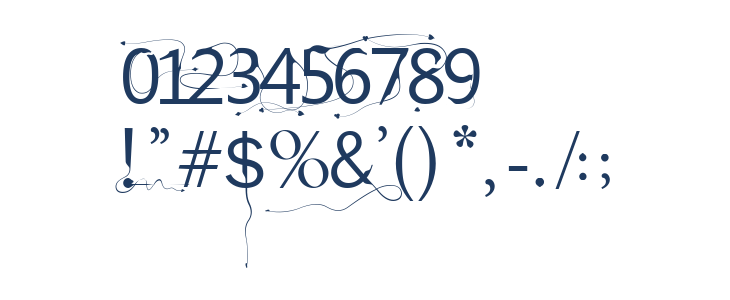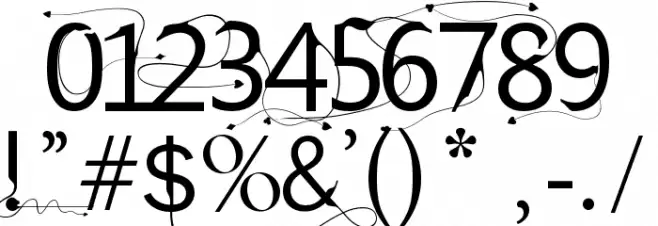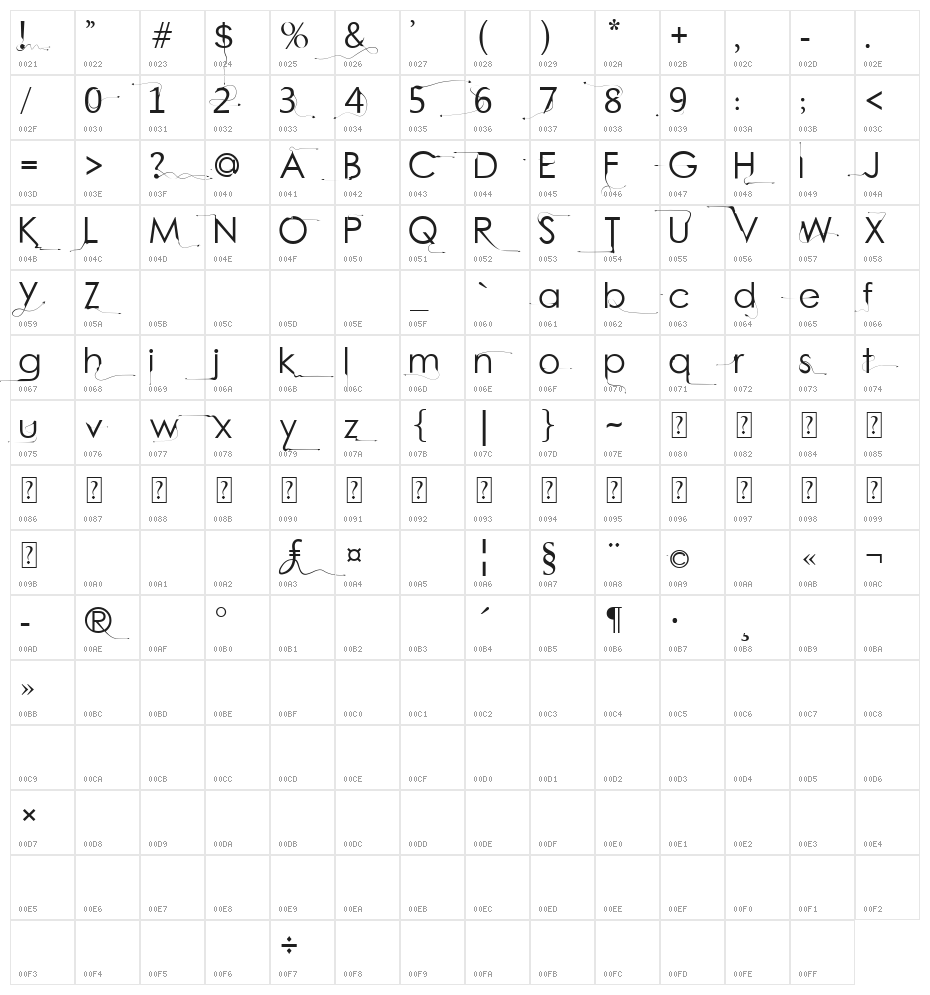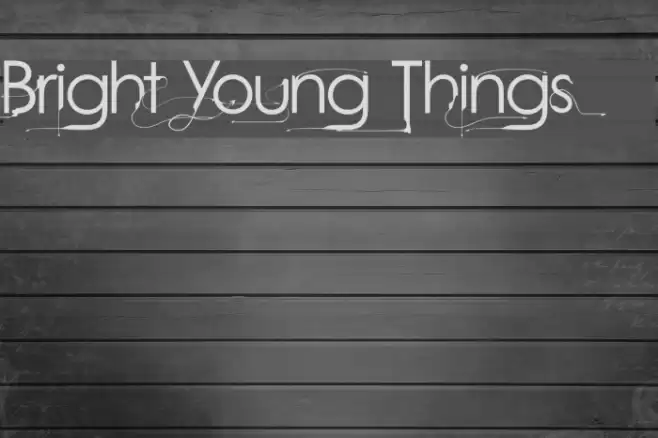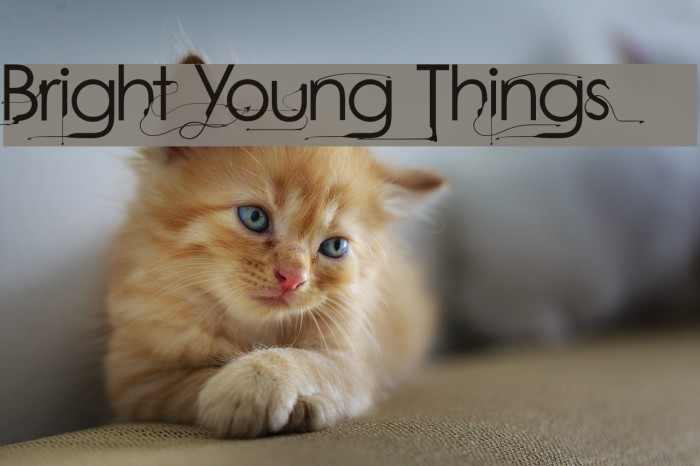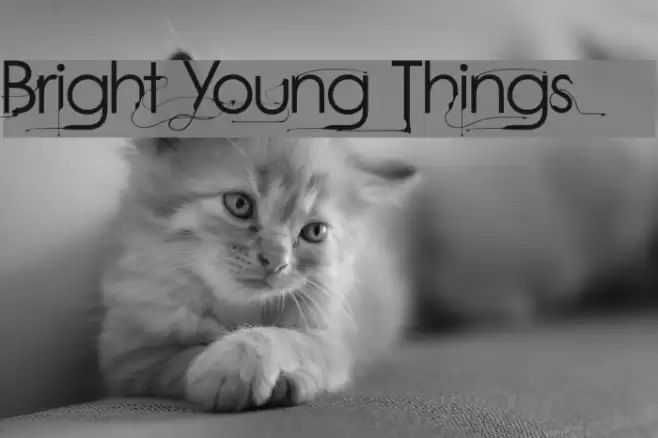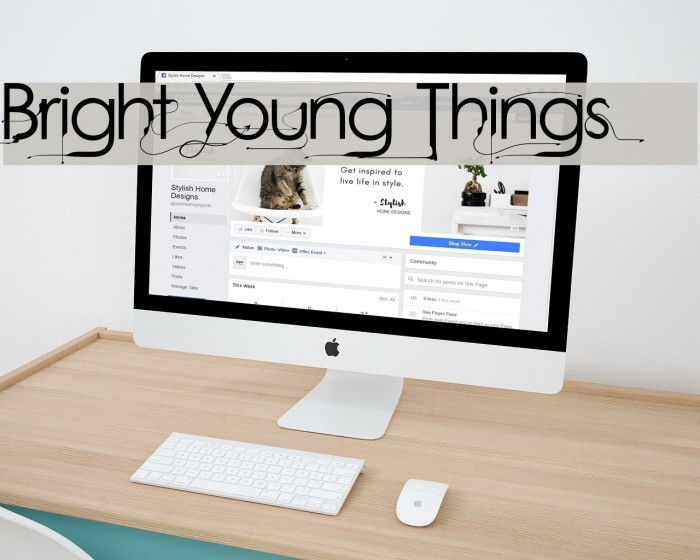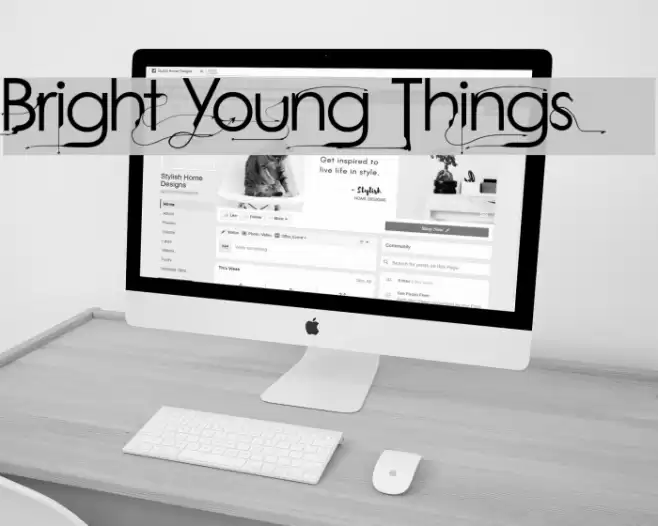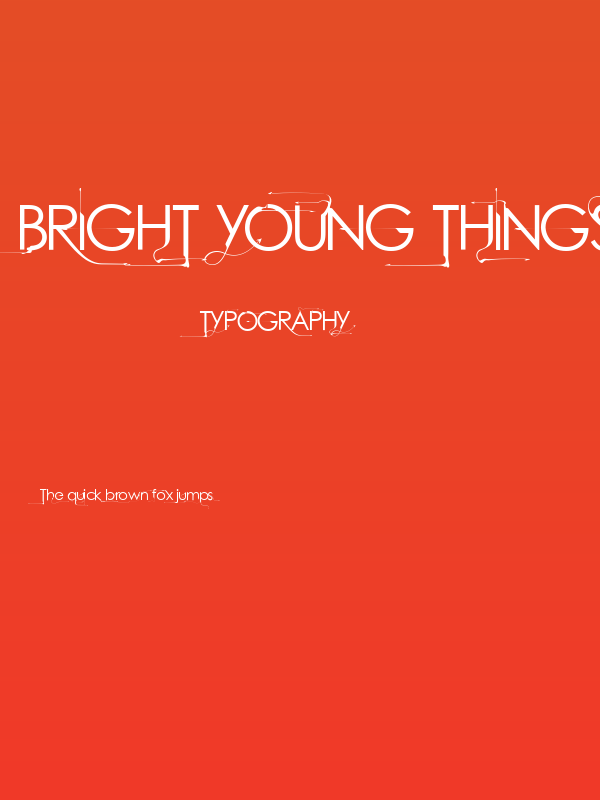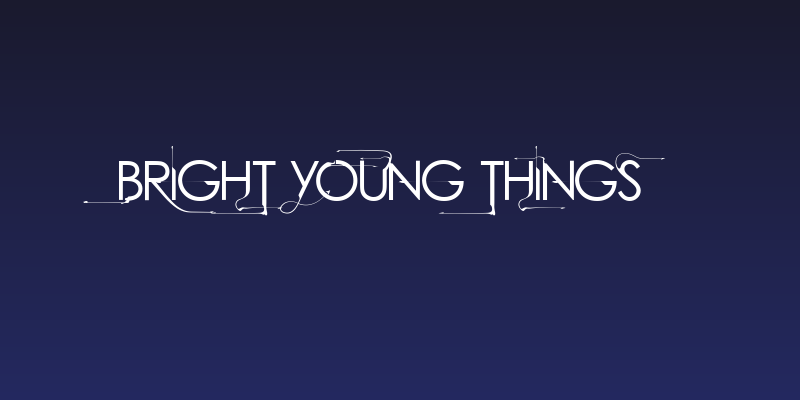
Bright Young Things Font
Bright Young Things Description
This font features a modern and artistic design, characterized by its clean lines and geometric shapes. The uppercase letters are bold and striking, while the lowercase letters maintain a consistent style with a slightly softer appearance. The numerals are clear and easy to read, complementing the overall design. Special characters are included, adding versatility to the font. The unique aspect of this font is the decorative swirls and lines that accompany each character, adding a whimsical and creative touch. This makes it suitable for projects that require a blend of modernity and artistic flair.